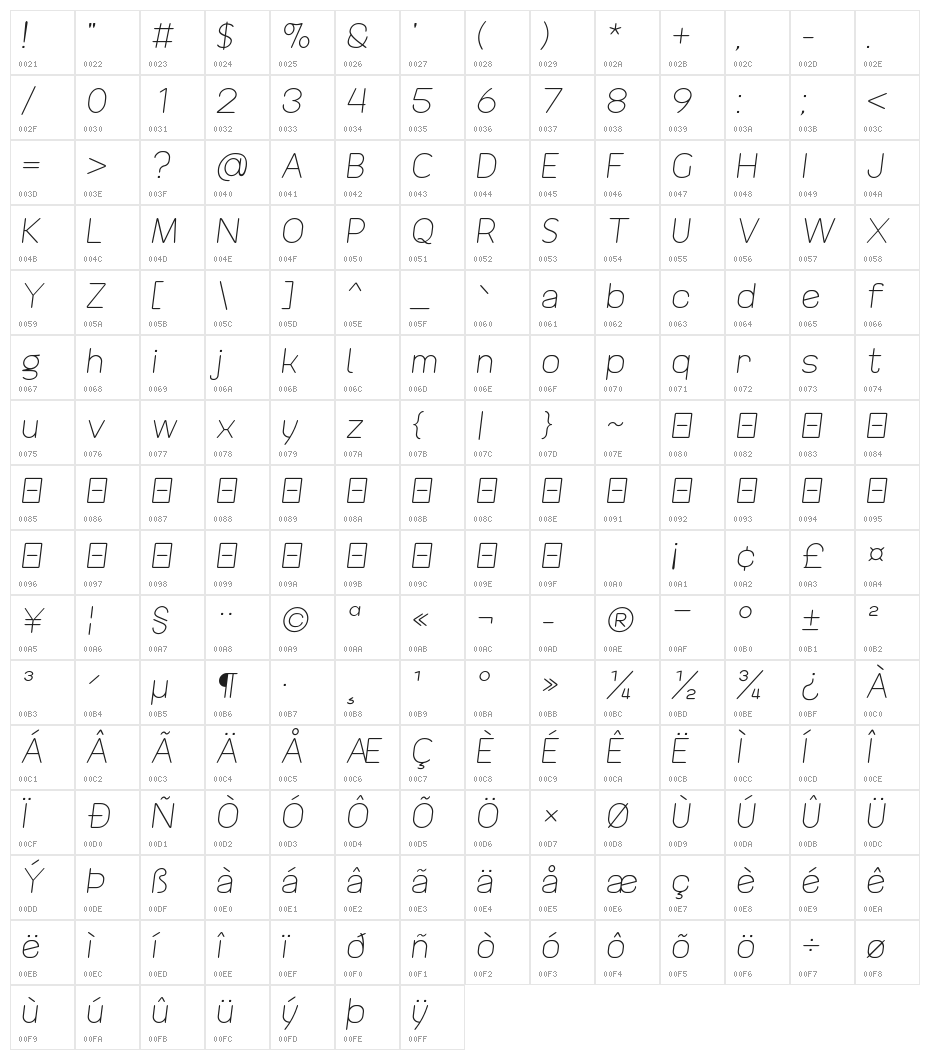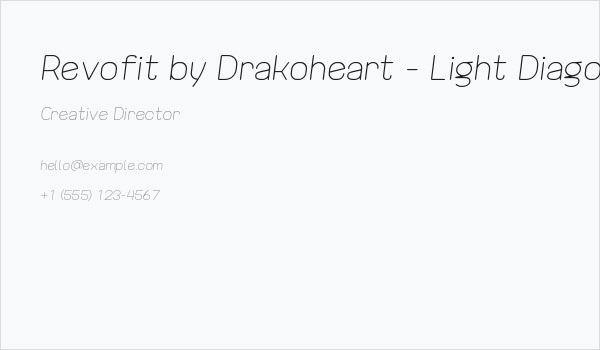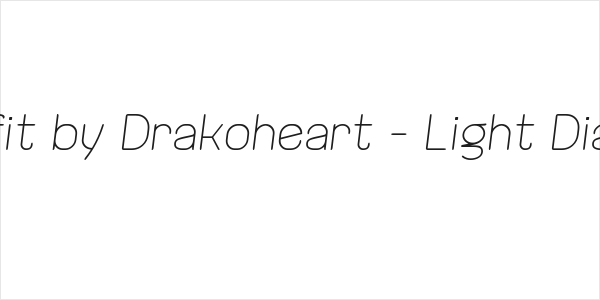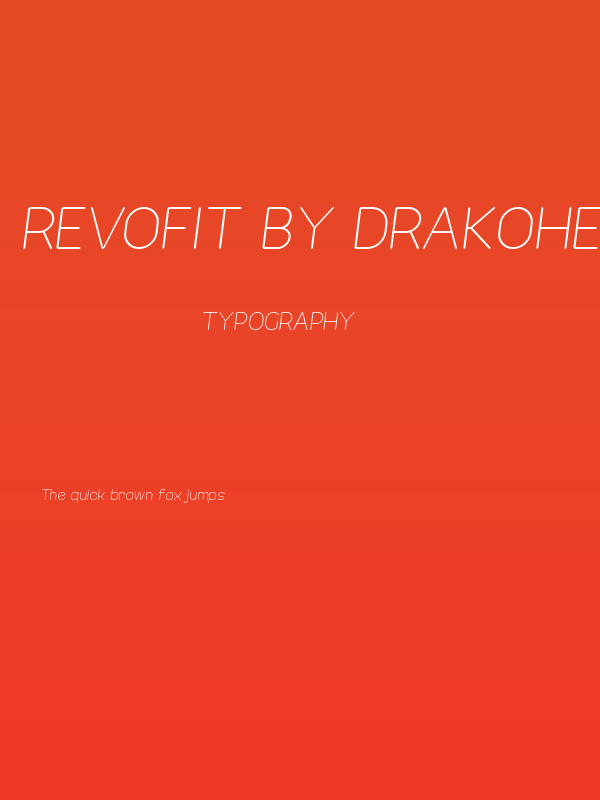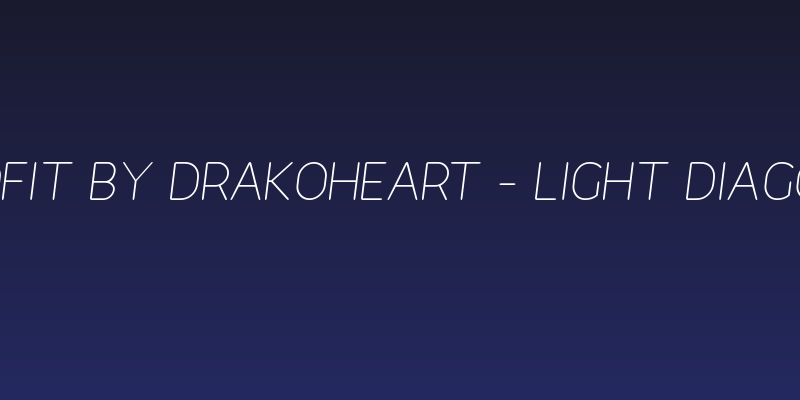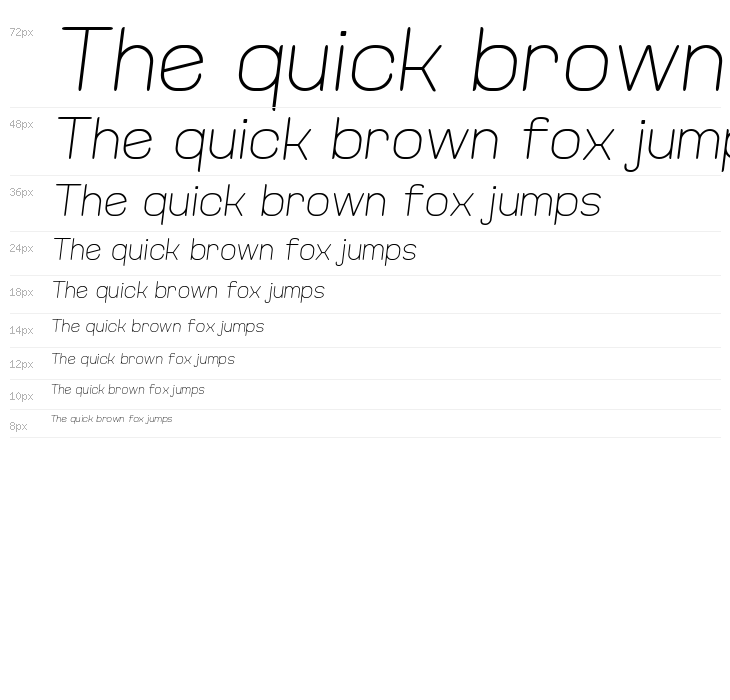
Revofit by Drakoheart - Light Diagonal Font
Revofit by Drakoheart - Light Diagonal Description
This font features a sleek and modern design with a diagonal slant, giving it a dynamic and forward-moving appearance. The characters are crafted with a light weight, providing an airy and elegant feel. The strokes are consistent and smooth, contributing to its readability. The font maintains a uniform width across all characters, enhancing its clean and streamlined look. The spacing between characters is balanced, ensuring clarity and legibility. This style is particularly suitable for contemporary designs, offering a fresh and sophisticated aesthetic.
| Use Case | Headlines, Logos, Digital Media |
| Proposed Projects | Ideal for branding, advertising, digital media, and modern editorial design. |